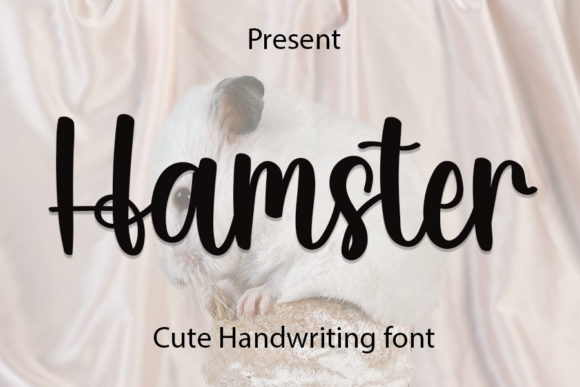
Step into a world of captivating typography with Hamster Font, the ultimate fusion of elegance and modernity. Crafted by the visionary designers at Inermedia STUDIO, this peerless script font exudes a timeless charm, reminiscent of classic calligraphy, yet infused with a contemporary flair that resonates with the digital age. Hamster Font is not merely a collection of letters; it's an artistic expression, a symphony of curves and strokes that dance across the screen, captivating your audience with their grace and allure.
With Hamster Font, you'll unveil a world of creative possibilities, transforming your digital creations into masterpieces. Whether you're crafting the interface of a cutting-edge app, designing a captivating logo that demands attention, or weaving words into a tapestry of visual delight, Hamster Font will elevate your designs to new heights. Its versatile nature seamlessly adapts to a myriad of styles, from the understated elegance of minimalism to the vibrant energy of maximalism.
Immerse yourself in the world of Hamster Font and discover a treasure trove of typographic wonders. Its meticulously crafted curves and delicate flourishes infuse your designs with a touch of sophistication, while its contemporary edge ensures that your creations remain relevant and engaging in the ever-evolving digital landscape.
Hamster Font is more than just a font; it's an artistic journey, an invitation to explore the boundaries of creativity and leave an indelible mark on the world. Its timeless beauty and unwavering versatility make it the perfect choice for discerning designers seeking to create truly exceptional digital experiences.